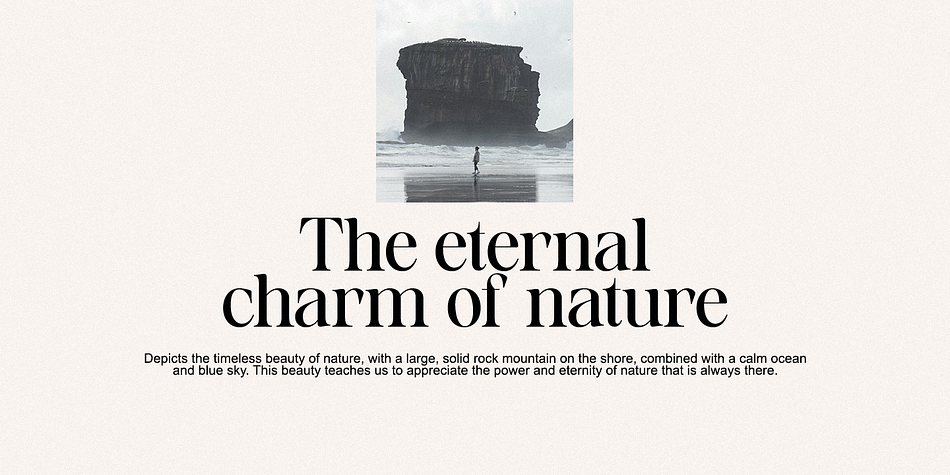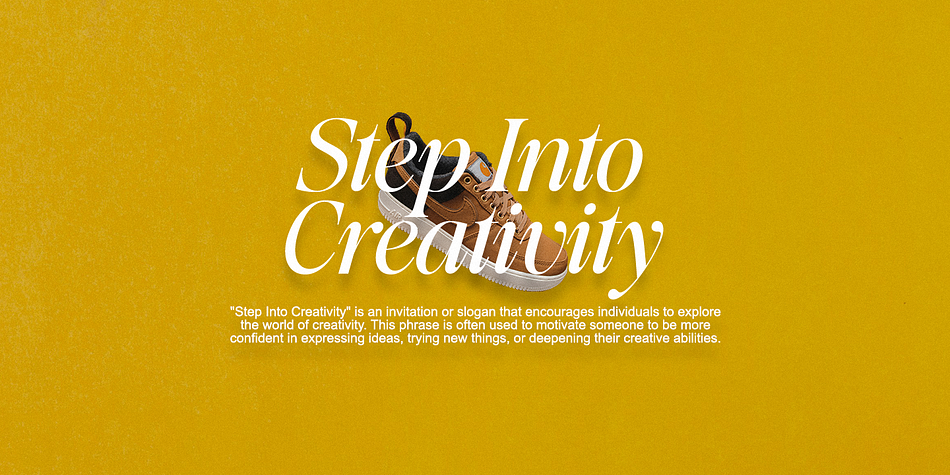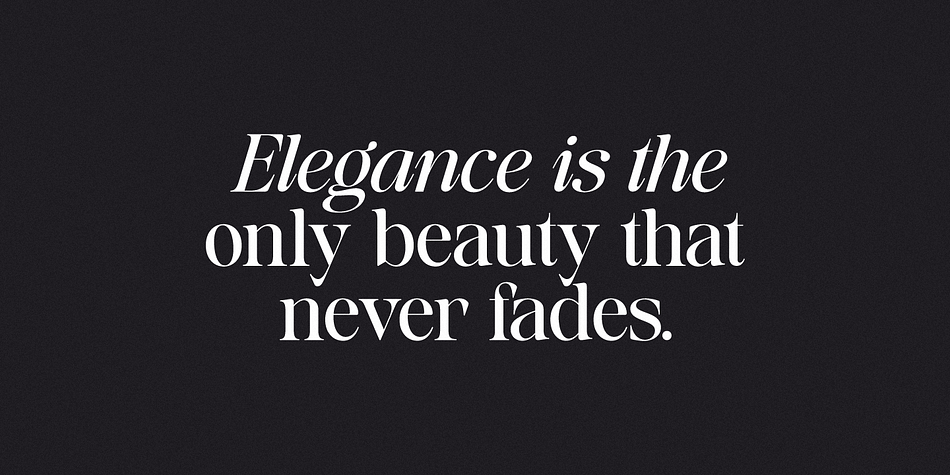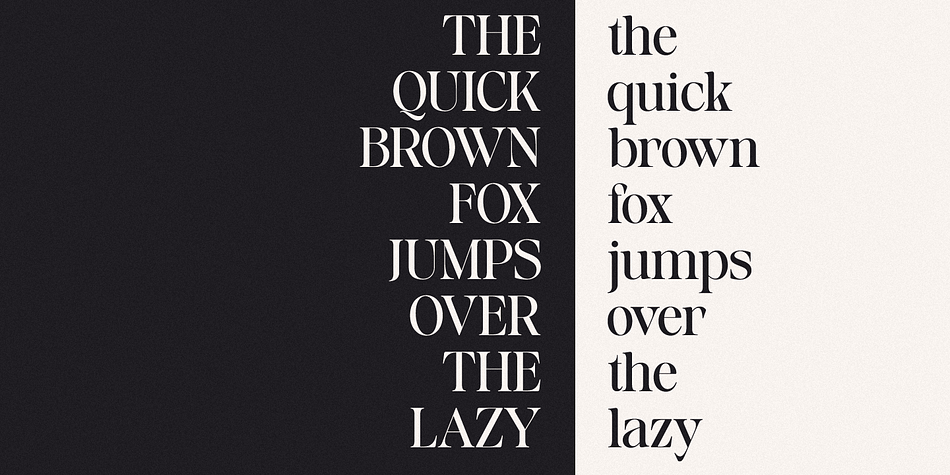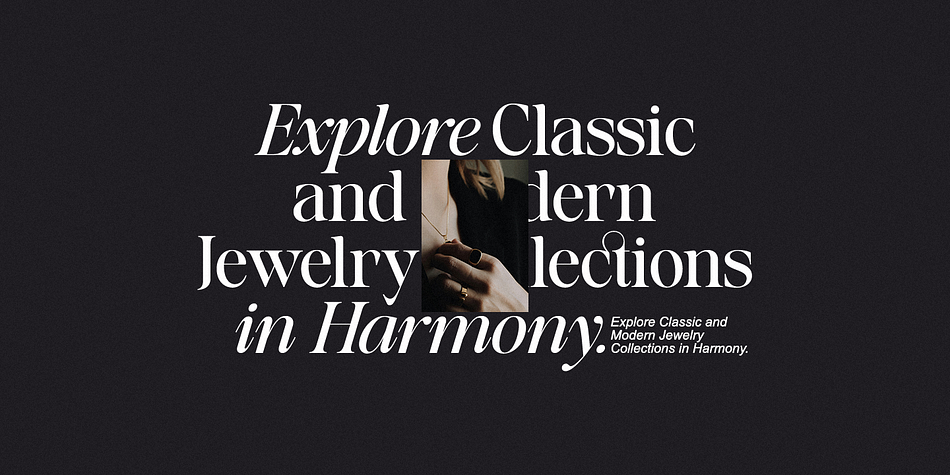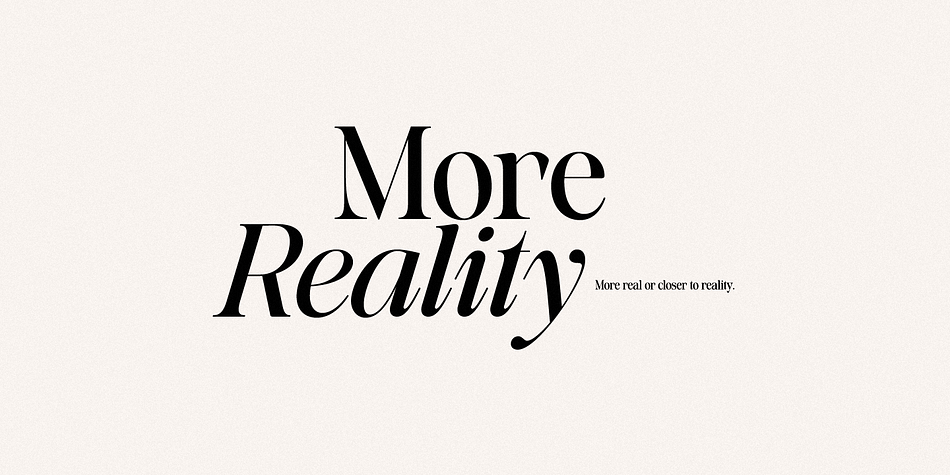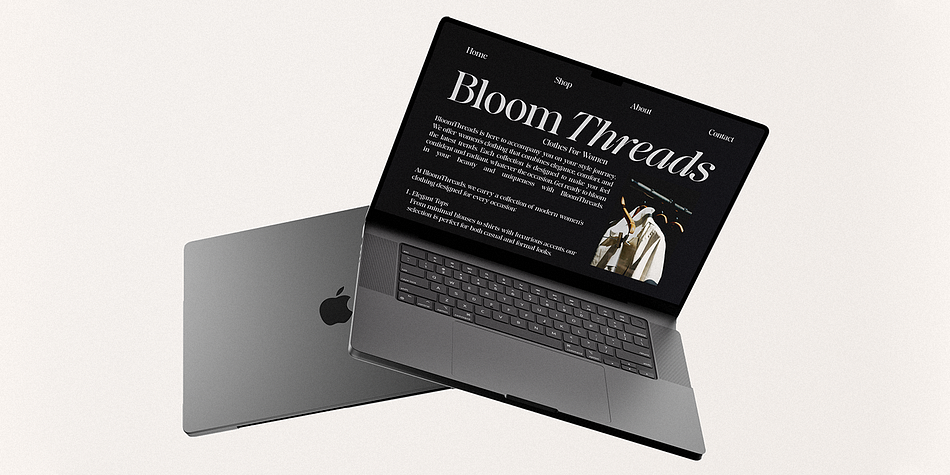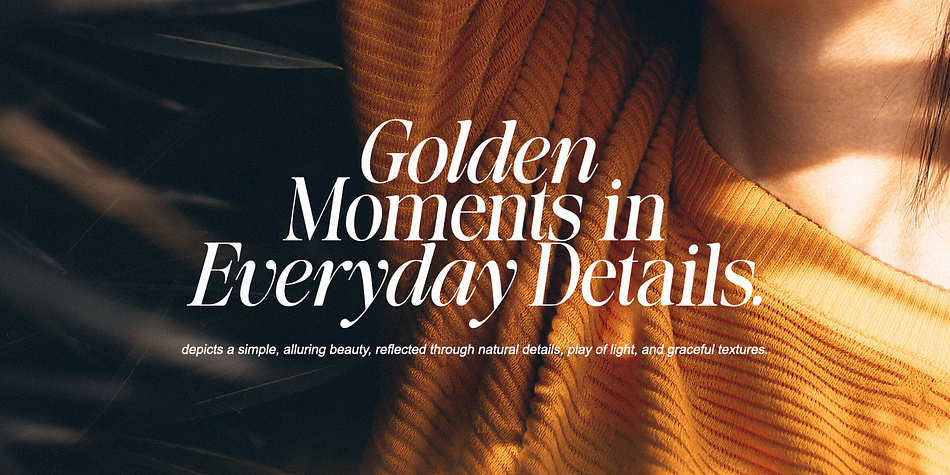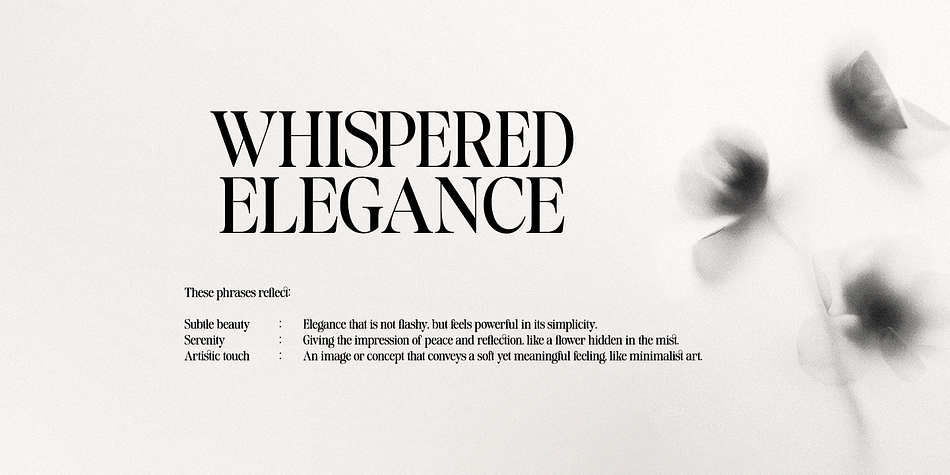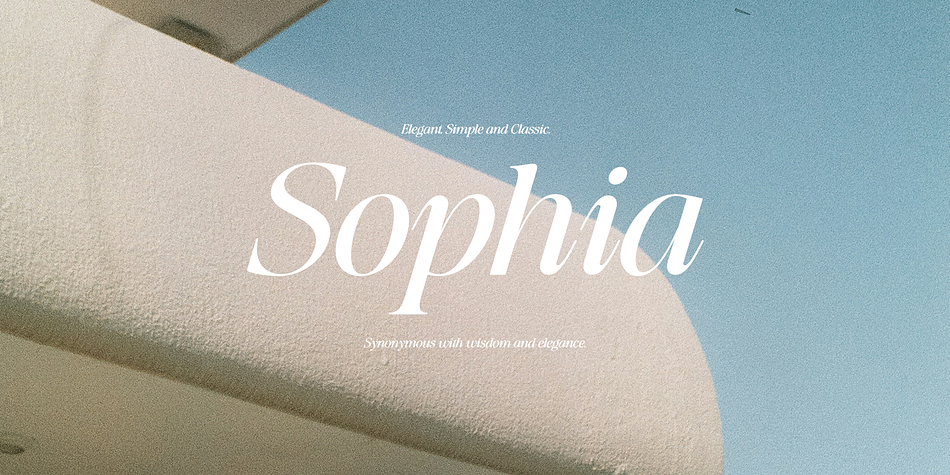
Baliths Serif
Baliths Serif is a serif font family. This typeface has nine styles and was published by Pista Mova.
Introducing Baliths Serif: A Typeface for Timeless Elegance
Discover the charm of timeless sophistication with Baliths Serif, a carefully crafted typeface that blends classic elegance with a modern aesthetic. With high-contrast strokes and graceful curves, Baliths Serif creates a captivating visual harmony that elevates any design.
Whether you’re creating a sophisticated editorial layout, a memorable brand identity, or an engaging website, the flexibility and refined beauty of Baliths Serif will make your designs truly stand out. Each character is carefully crafted to embody strength and elegance. From its finely chiseled serifs to its perfectly balanced proportions, this typeface celebrates the timeless appeal of classic typography. Its true italics, with their unique style, add dynamic movement and visual interest, empowering you to create designs that are both captivating and easy to read.
Key Features: Effortless Elegance: Clean lines and balanced proportions exude classic charm, making it ideal for a wide range of applications. Advanced OpenType Features: Take full control of your typography with advanced OpenType options, including ligatures. Multilingual Support: With support for over 90 languages, Baliths Serif ensures your message reaches a global audience. True Italic: More than just an italic, Baliths Serif’s italics are carefully designed to complement upright characters, creating a harmonious visual flow. Perfect For: Editorial Design: Ideal for magazines, newspapers, and books, Baliths Serif combines elegance with readability for long-form content. Branding & Logos: Create a sophisticated and memorable brand identity with the timeless appeal of Baliths Serif. Web Design: Its clean lines and high contrast ensure optimal readability on screens of all sizes. Packaging & Print: Add a touch of class to your product packaging and printed materials. Invitations & Stationery: Make a lasting impression with Baliths Serif elegant presence on invitations, greeting cards, and more.